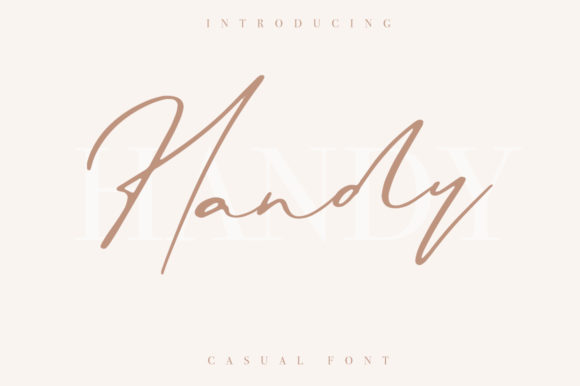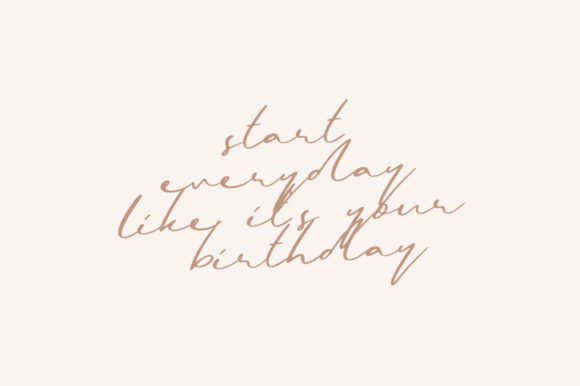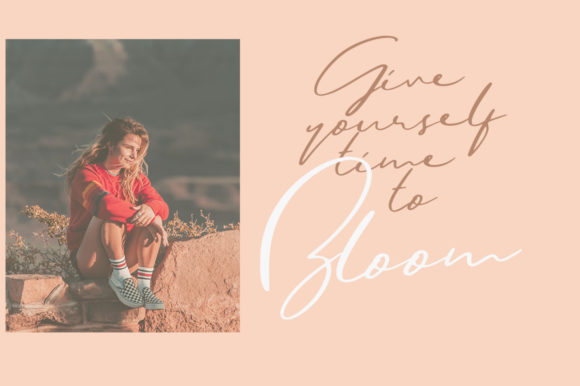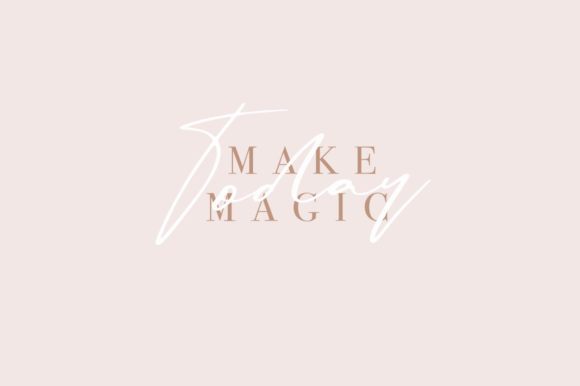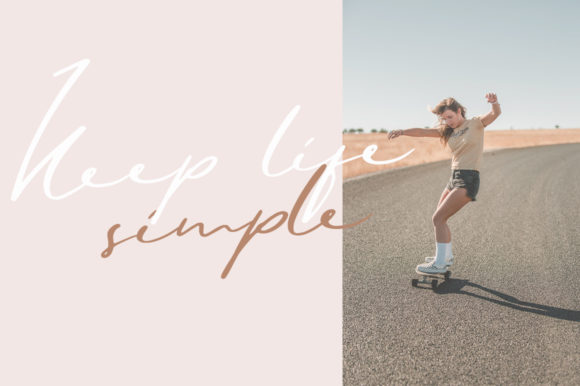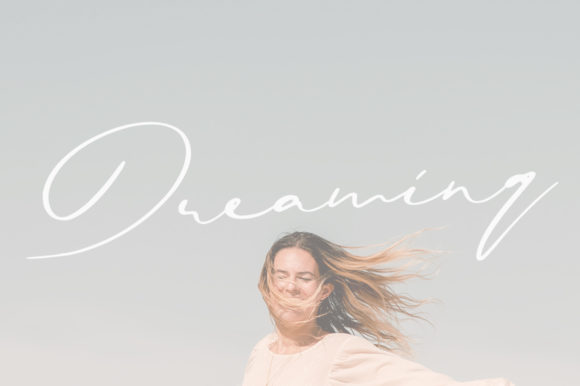
Handy Font
About Handy Font
Handy feele elegant and calm, with beautiful handwritten characters. This fancy script will add a personal touch to your next design in an instant!